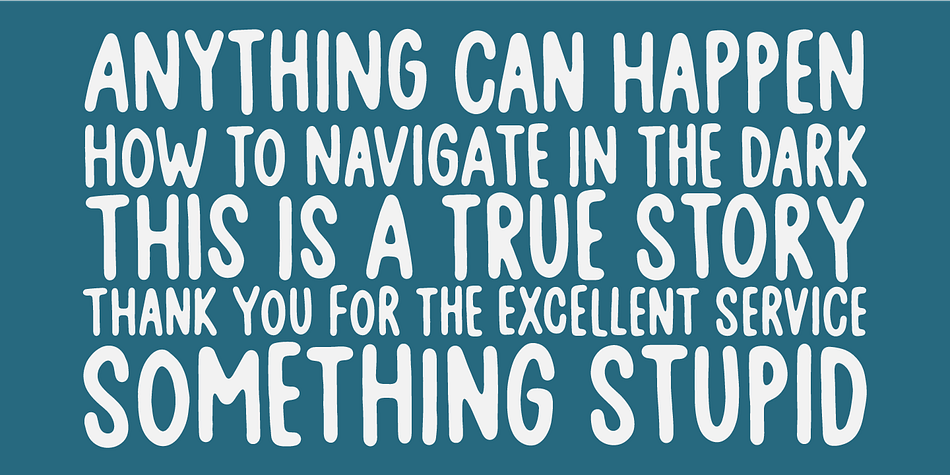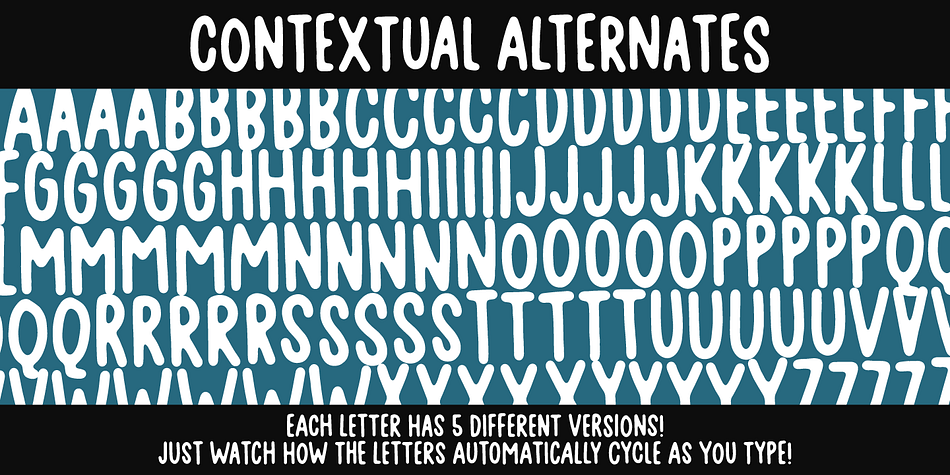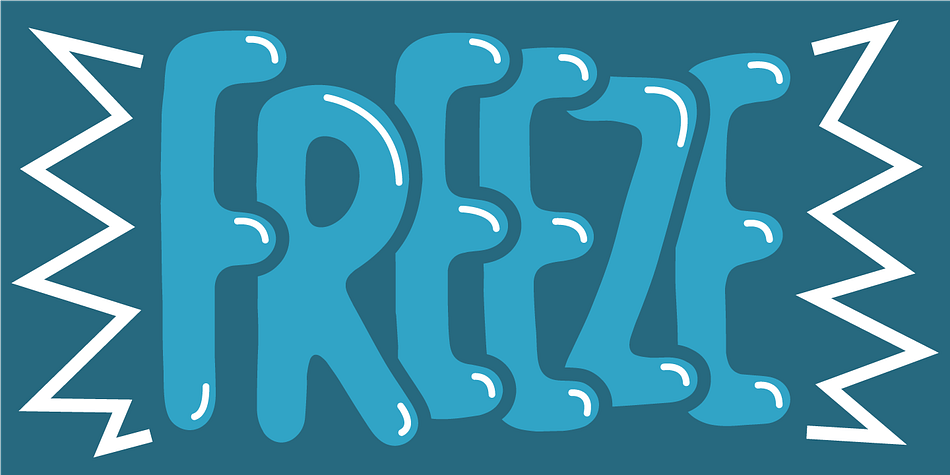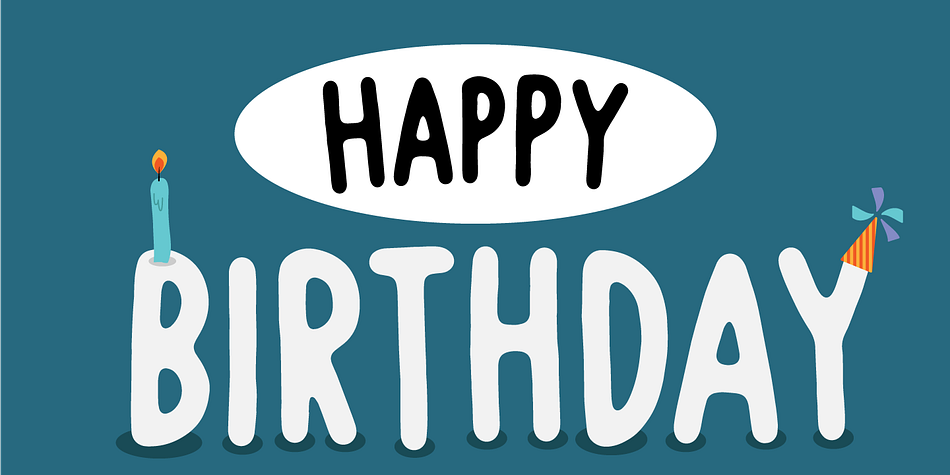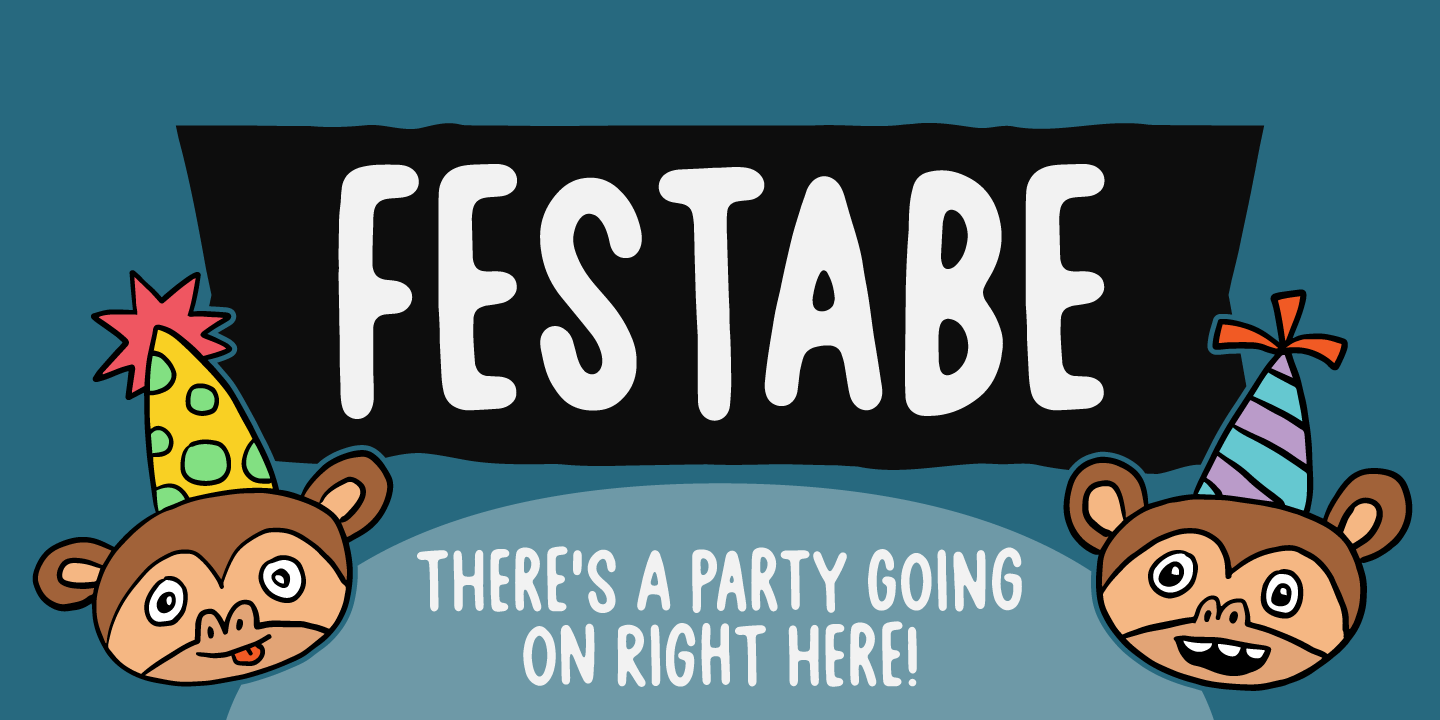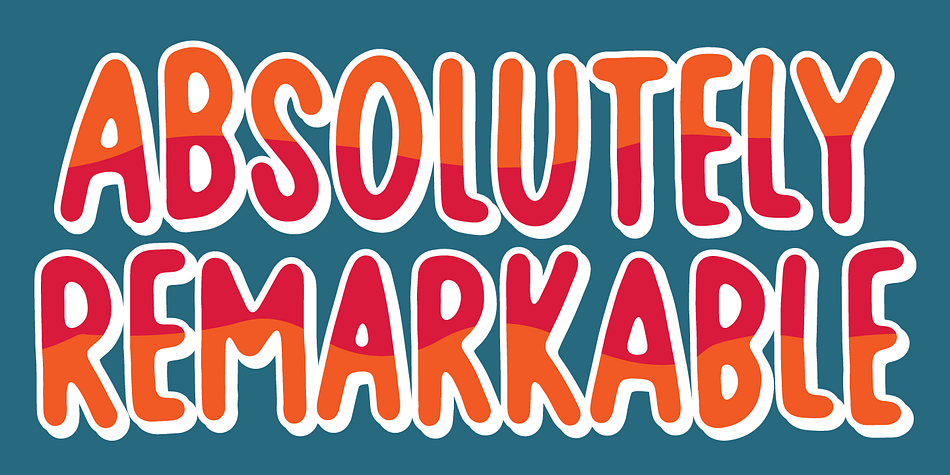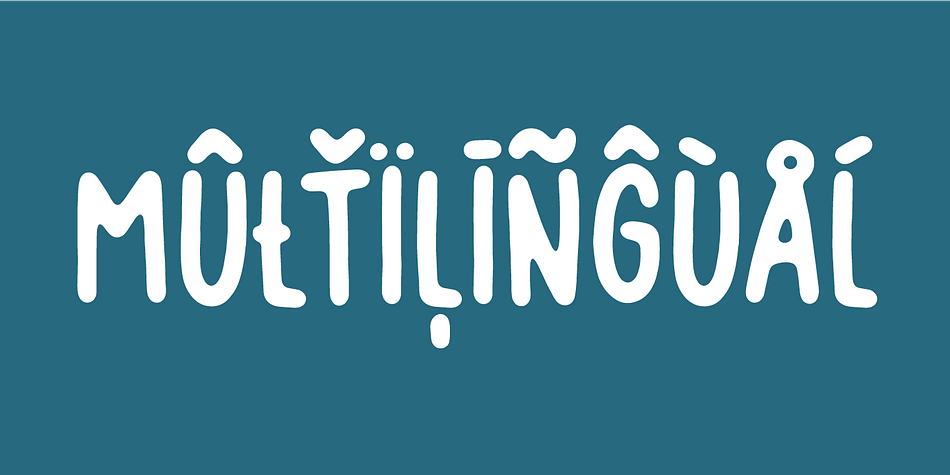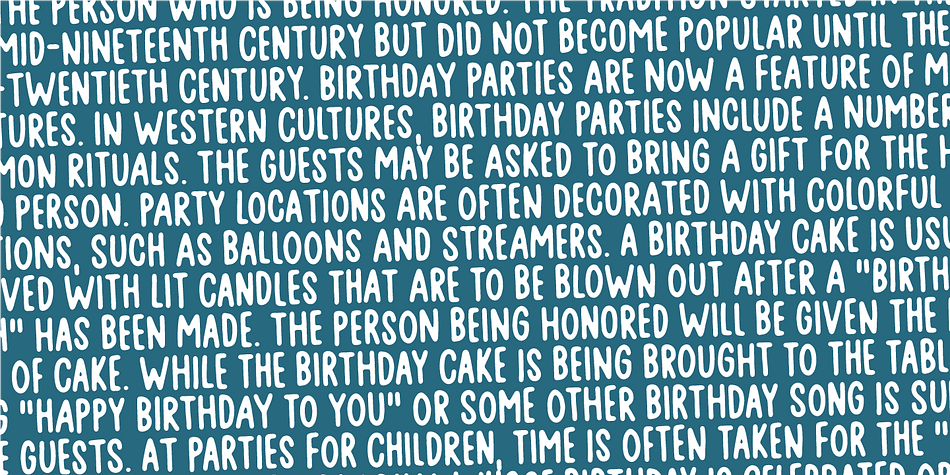
Designed by Jakob Fischer, Festabe is a display sans and hand display font family. This typeface has two styles and was published by Pizzadude.dk.
It’s time for a party! A party with monkeys, or a party AS monkeys! :)
The danish term “Festabe” is a partyanimal, and definitely in a positive way!
And that’s the spirit of this font! It has that happy attitude, that could boost your designs in a happy and positive way.
Besides legibility, the font is superlegible, even at very small sizes. But try looking at the letters at a LARGE size, and you will notice the smoothness of each letter!
To ensure the letters don’t get too alike, I’ve added several (slightly) different versions of each letter. In fact, every letter has 5 different versions, and these automatically cycles as you type!